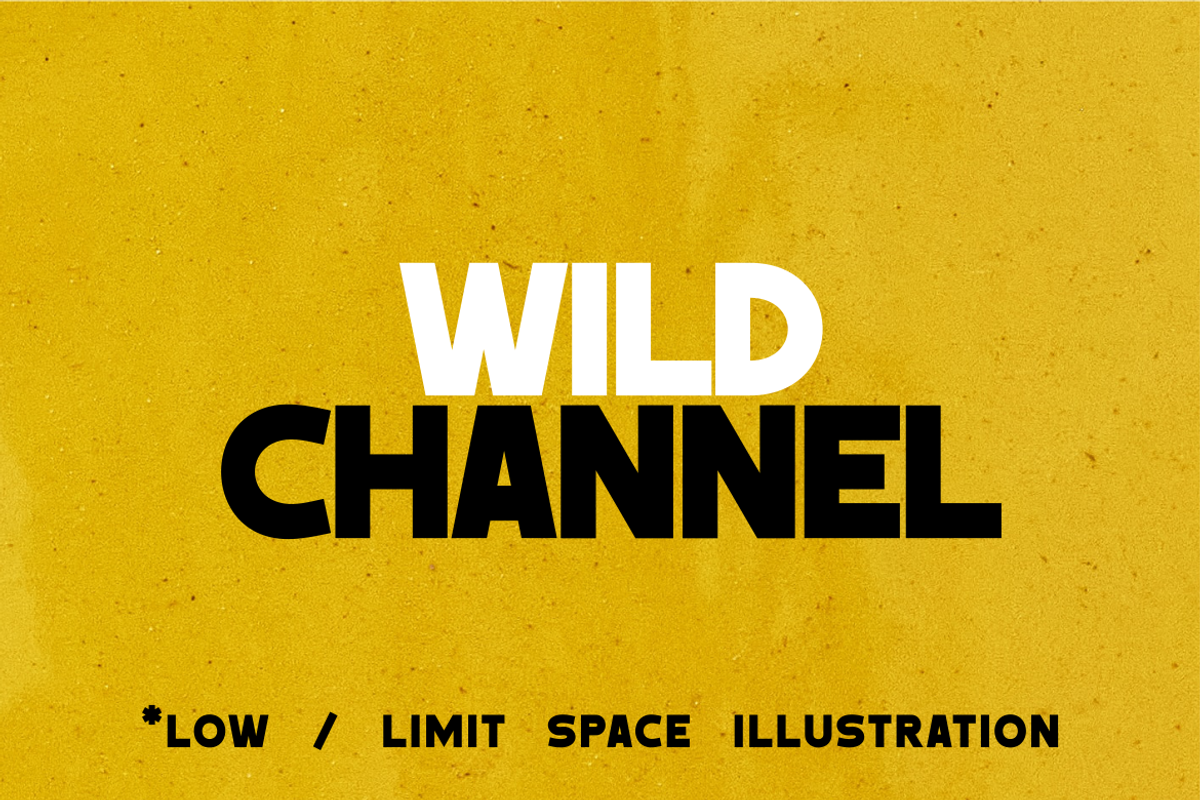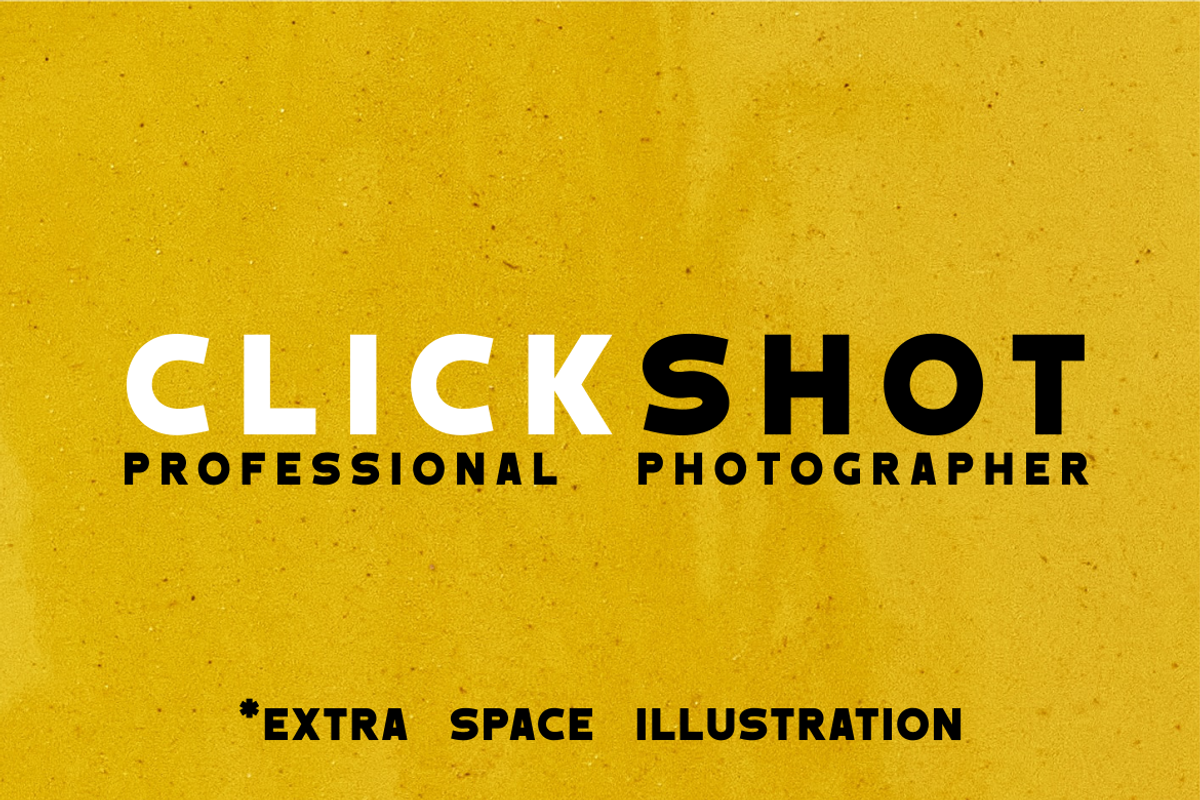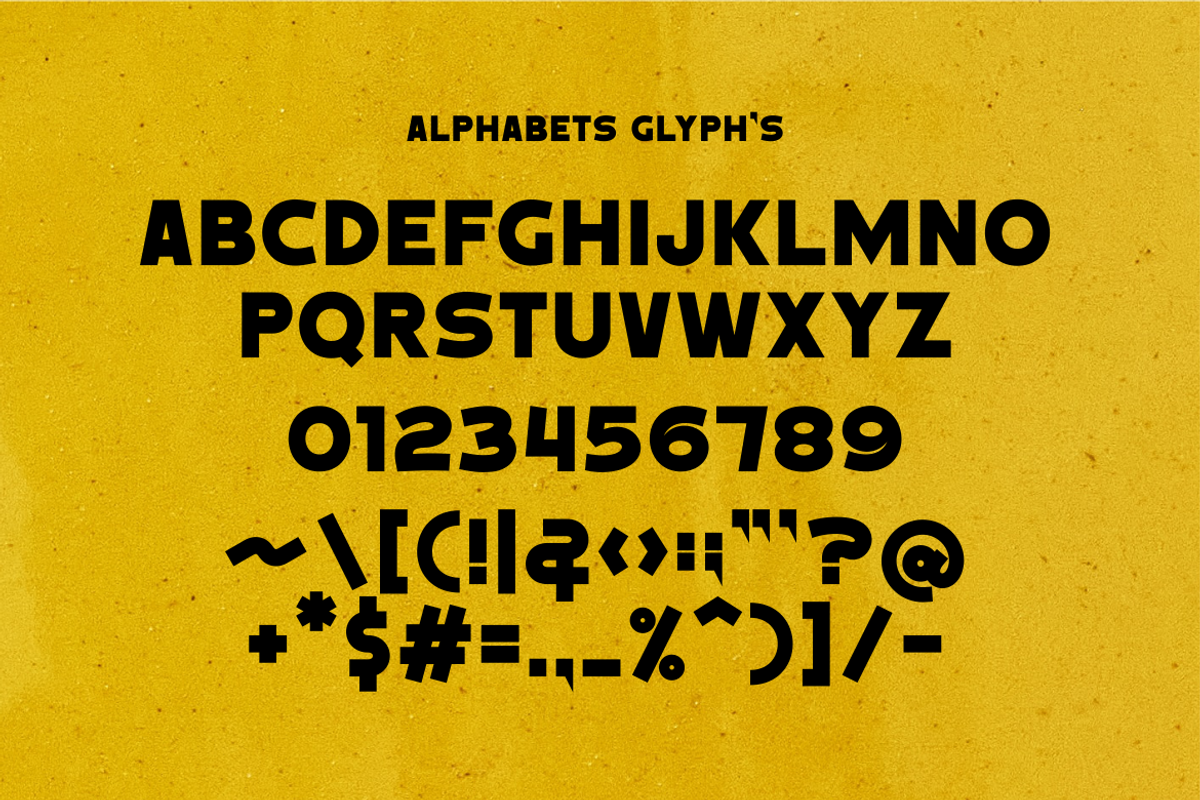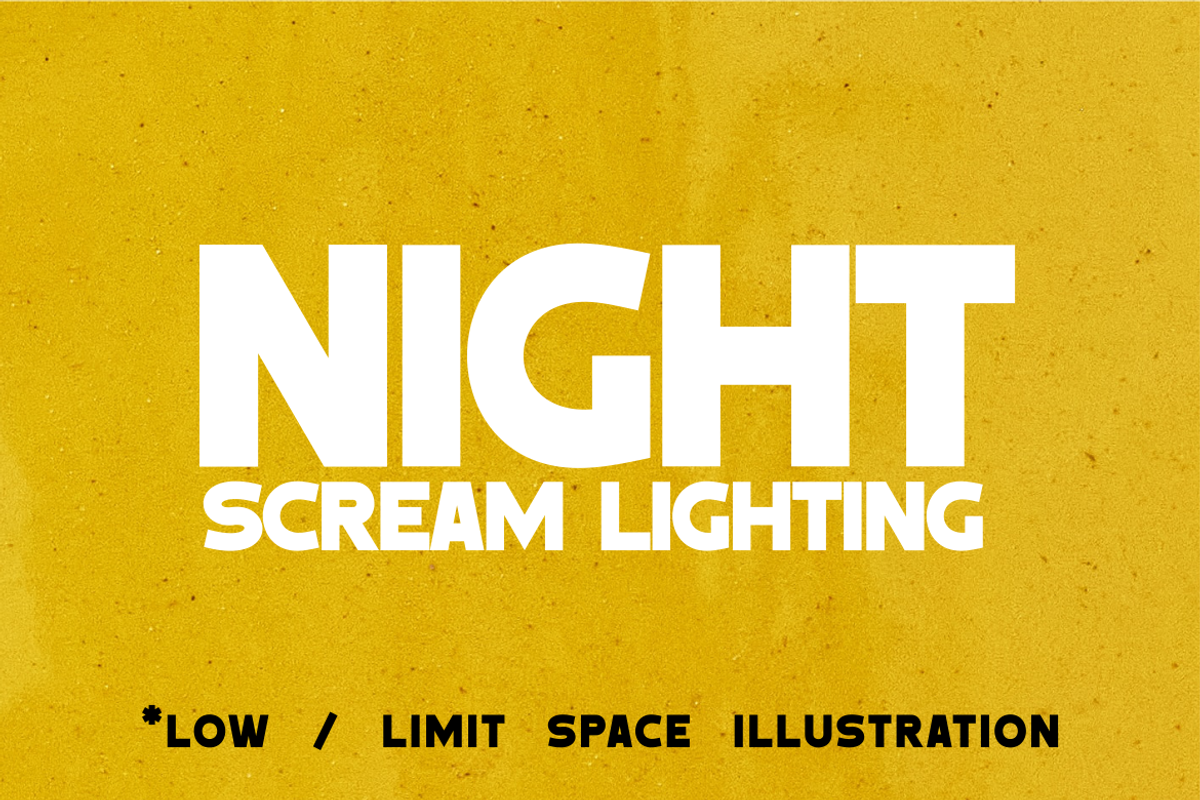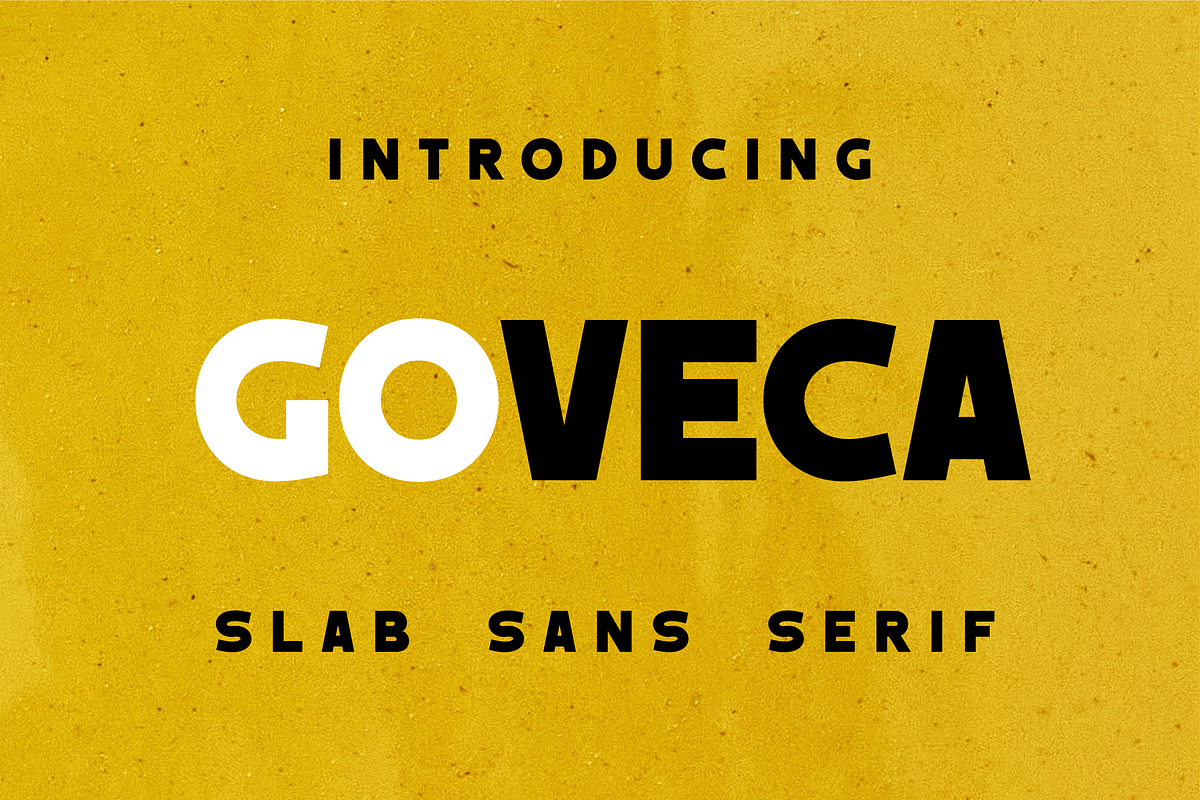
Goveca
This font, Goveca, is my creation. It’s a modern and bold serif font designed to make a statement in any design project. With its clean lines and professional style, Goveca is perfect for branding, logos, editorial layouts, and more.